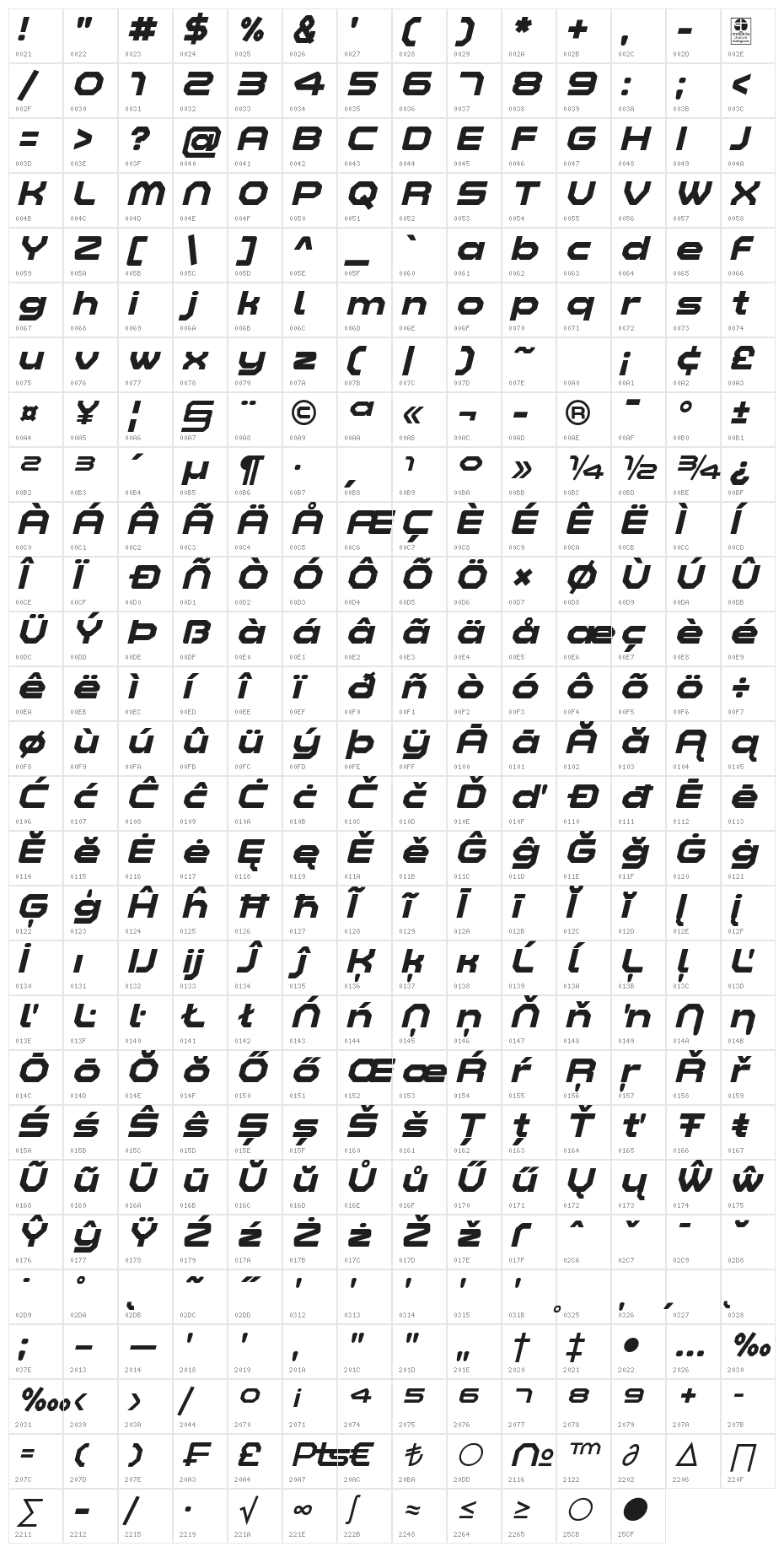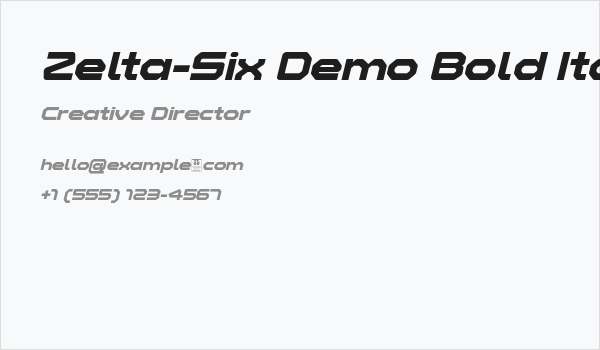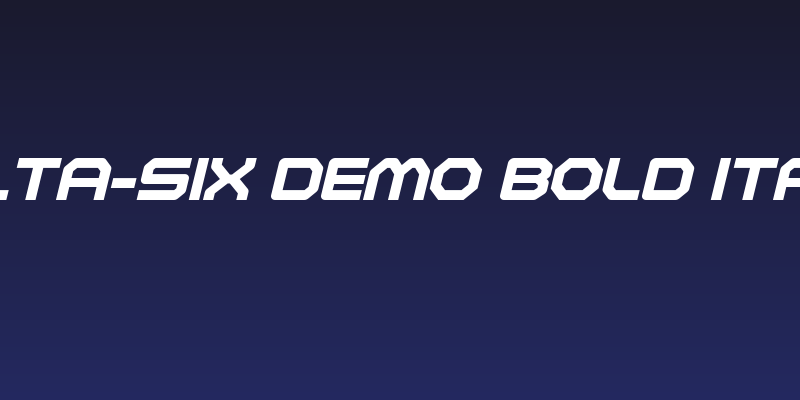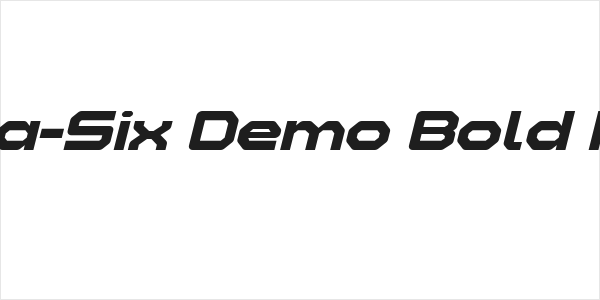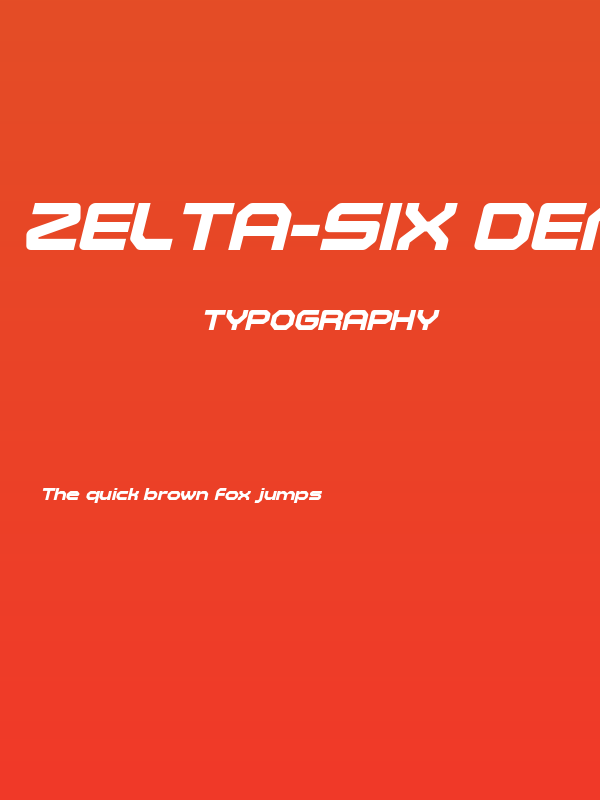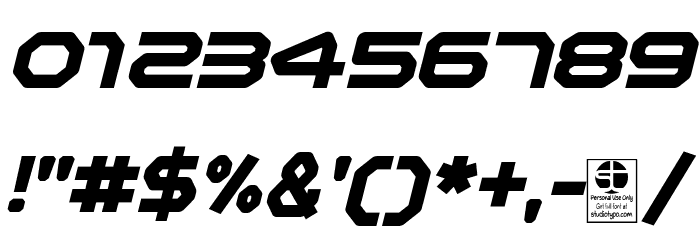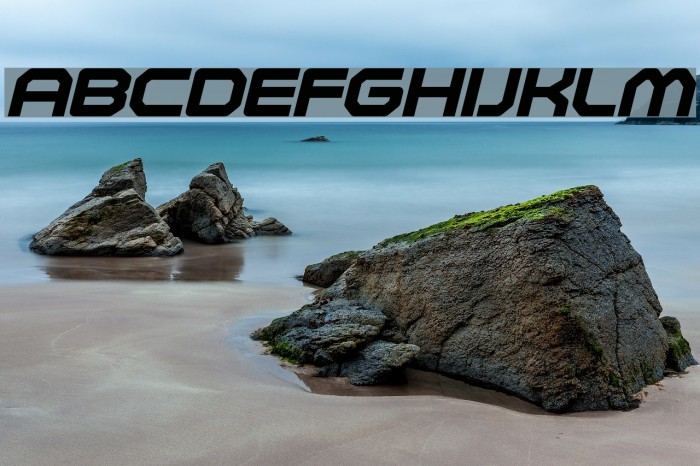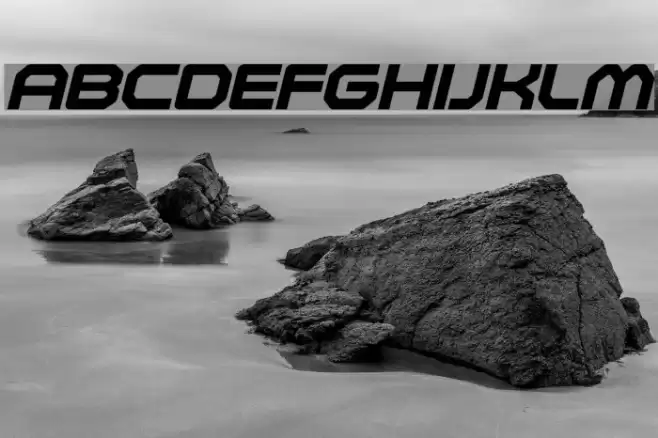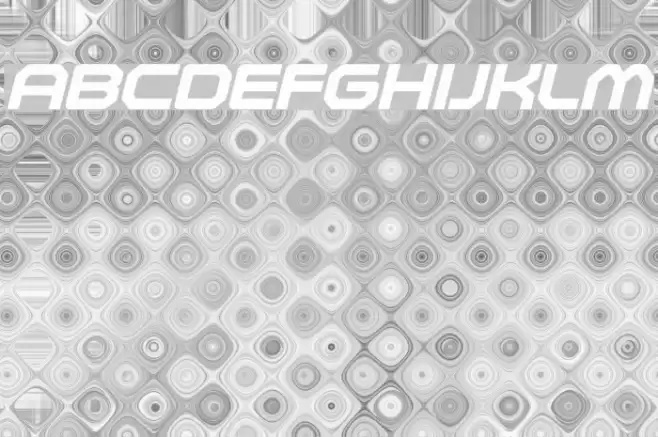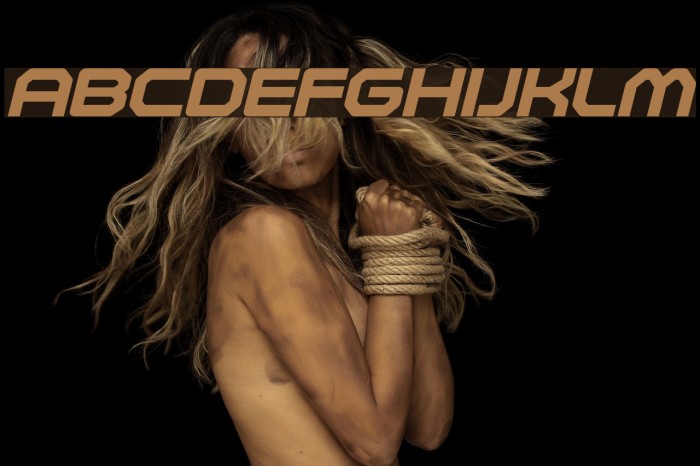
Zelta-Six Demo Bold Italic Font
Zelta-Six Demo Bold Italic Description
This font exhibits a bold and italicized style with a futuristic and angular design. The characters are distinctly geometric, featuring sharp edges and a slanted orientation that conveys a sense of motion and modernity. The uppercase and lowercase letters maintain a consistent style, with the lowercase letters mirroring the angularity of the uppercase. The numerals are equally bold and follow the same geometric pattern, ensuring uniformity across all characters. Special characters are designed to match the overall aesthetic, making them suitable for cohesive design projects.